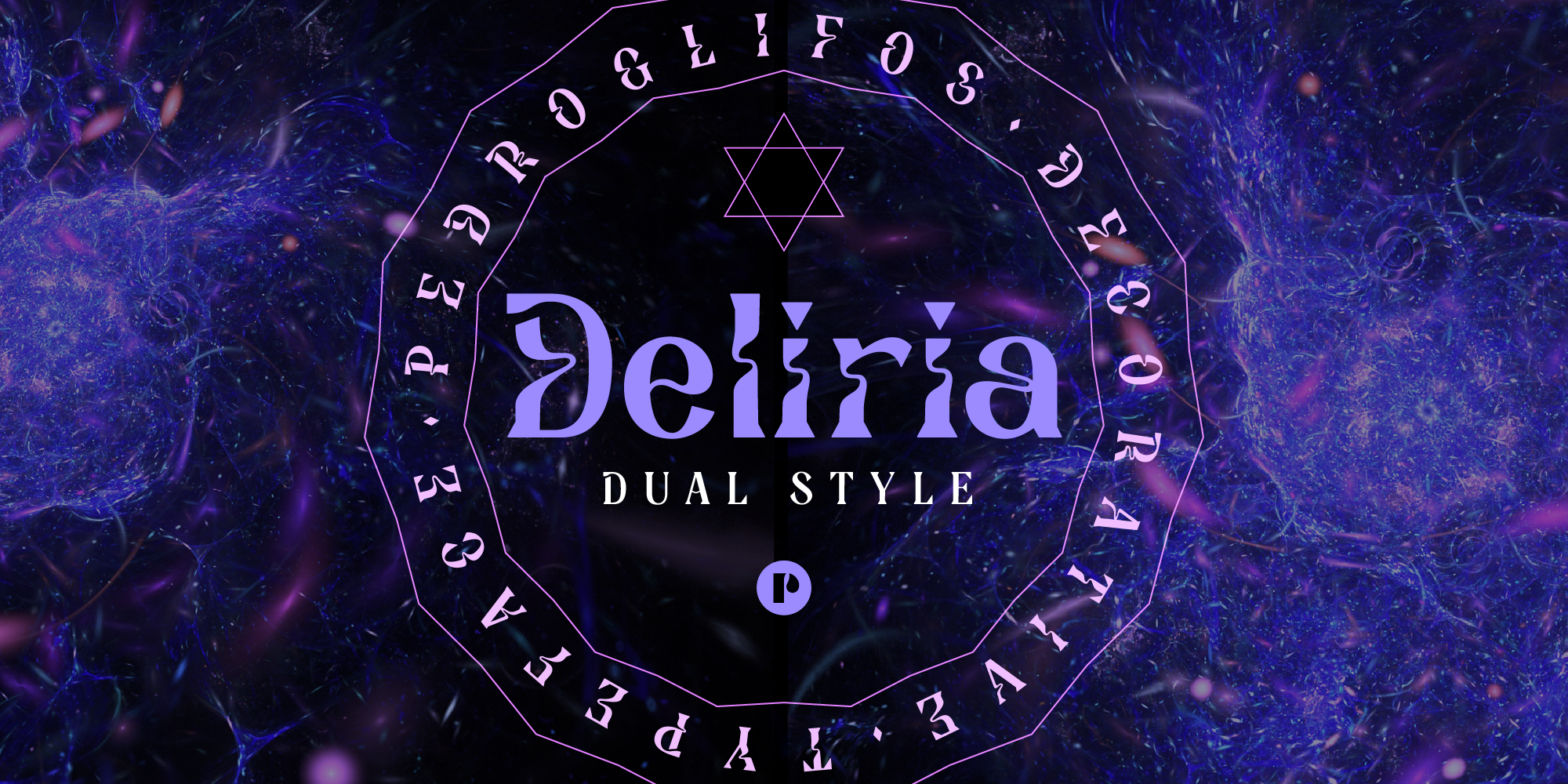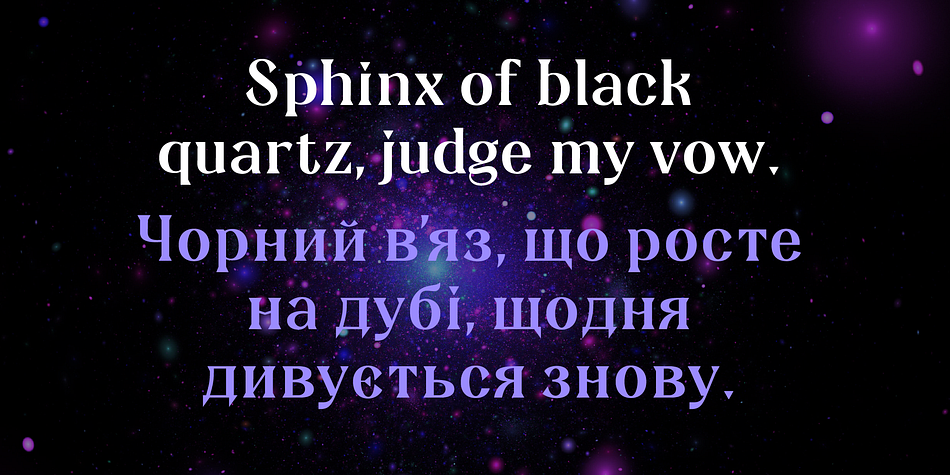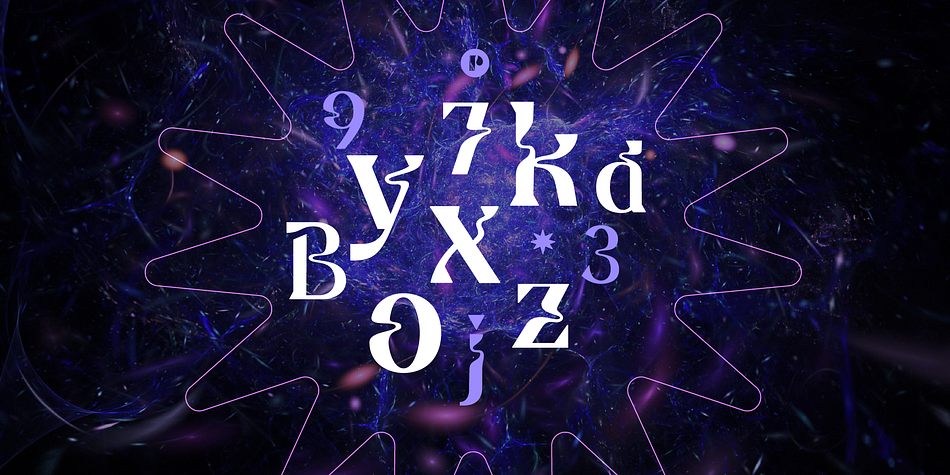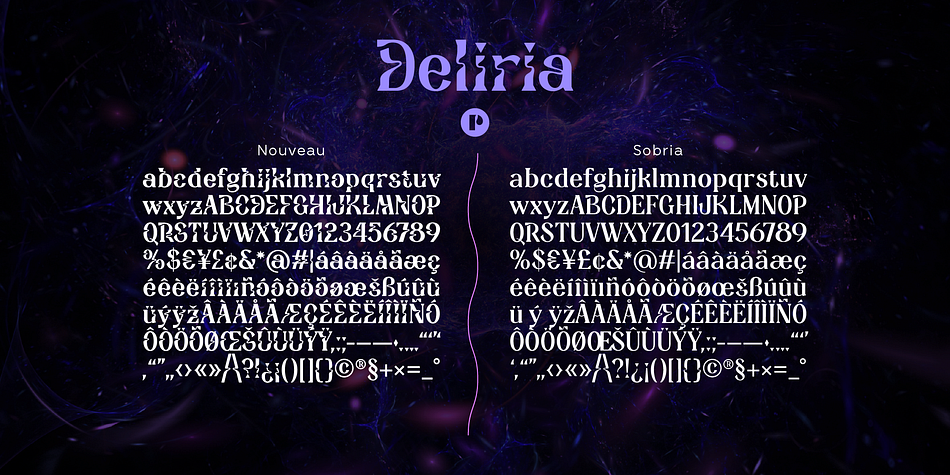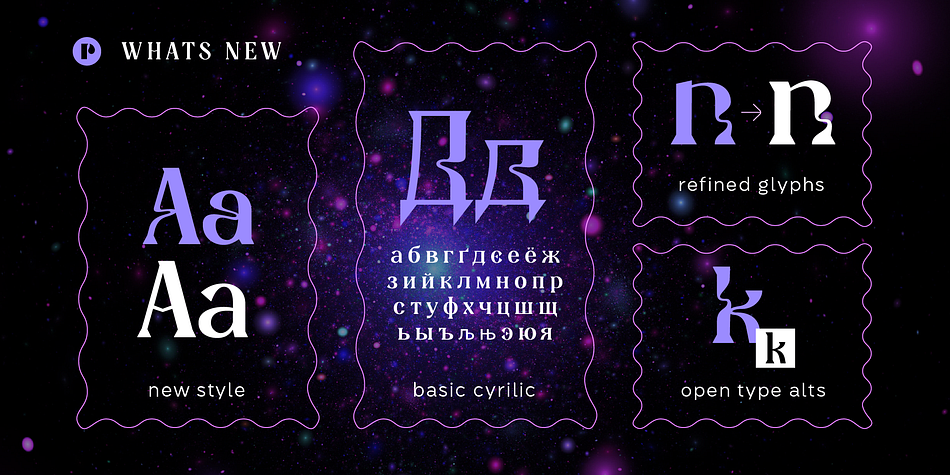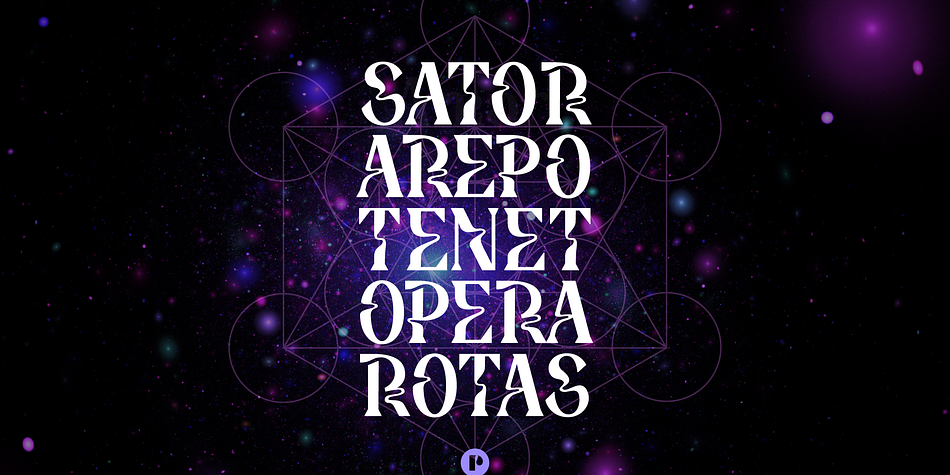
Deliria
Designed by Pedro Leandry, Deliria is an art nouveau font family. This typeface has three styles and was published by Pedroglifos.
I’ll admit it —Deliria was born out of a response to a trend you’ve probably noticed making a comeback: Art Nouveau, especially in the realm of font design. What began as an experiment quickly evolved into one of my most successful fonts. A year and a half later, I introduced a second style, Sobria, to enhance the font’s versatility. Sobria strips back each letterform to its core, offering a more legible alternative to the elaborate Art Nouveau style. Both styles coexist within Deliria, allowing you to seamlessly switch between the two, depending on your needs. Available in two weights, this dynamic display duo promises endless fun as you embark on your trippy type adventure with Deliria.
Deliria is a wedge serif typeface with strong structures. With a decent contrast and its tall x-height, she can be easily recognized in many sizes. In the Nouveau style, the liquified stems appear to be in motion, but because the effect is not over-done, and keeps it’s consistency letter by letter, the typeface doesn’t require guess work when it comes to reading. She pairs well with its sober counterpart, Sobria, which will allow even more legibility across your design with putting these two together in typographic layouts. Use it in song covers, creative titles, and poster design.